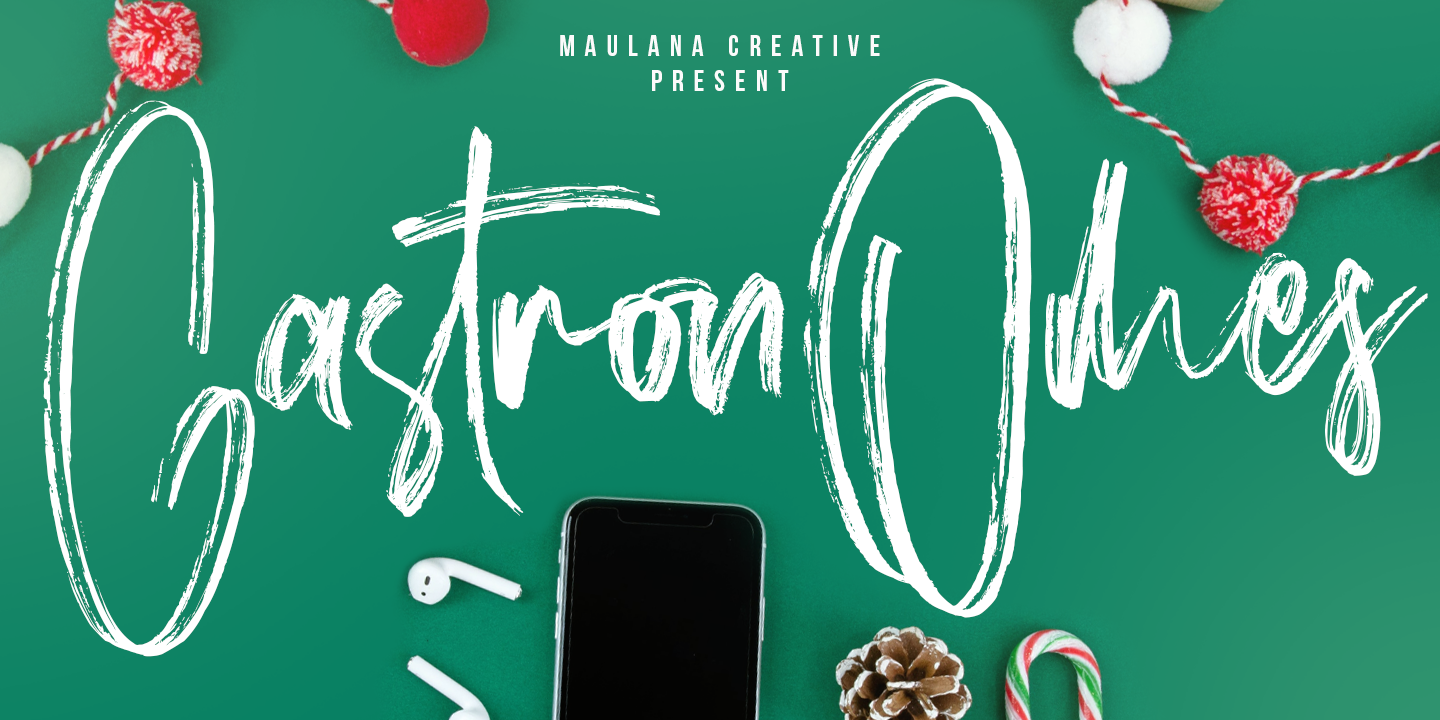
The Gastronomes Font is an excellent choice for designs that aim for a sophisticated, artisanal, and distinctly culinary-inspired aesthetic. Imagine it gracing the menu of a high-end restaurant, adding a touch of gourmet elegance to fine food packaging, or bringing a refined yet inviting feel to a culinary blog. It's also perfectly suited for wine labels, bespoke catering branding, farmers' market promotions with an upscale twist, and any project where you want to convey a sense of quality, craftsmanship, and a passion for good food. Its often elegant curves, subtle flourishes, and unique character make it ideal for conveying refinement and an appetizing appeal.
What makes the Gastronomes Font so exciting is its ability to instantly infuse a design with a feeling of culinary artistry and sophisticated taste. It frequently features a handcrafted quality combined with a polished finish, making it feel both unique and incredibly appealing. This font has a charming and distinctive personality that can instantly elevate your design, making it feel both quaint and deliciously expressive. It’s designed to capture attention with its unassuming beauty, ensuring your message is not just seen, but felt with a sense of delightful authenticity.
The Gastronomes Font family typically might offer a few key weights to best maintain its distinctive character, possibly including stylistic alternates or unique ligatures that enhance its whimsical or food-inspired appeal. While it might not always have an extensive range of weights, its strength lies in its unique visual style and inherent expressiveness. These variations empower designers to create a truly inviting and memorable display, ensuring the Gastronomes Font Free Download can adapt to a wide array of projects while maintaining its signature, tasty charm.